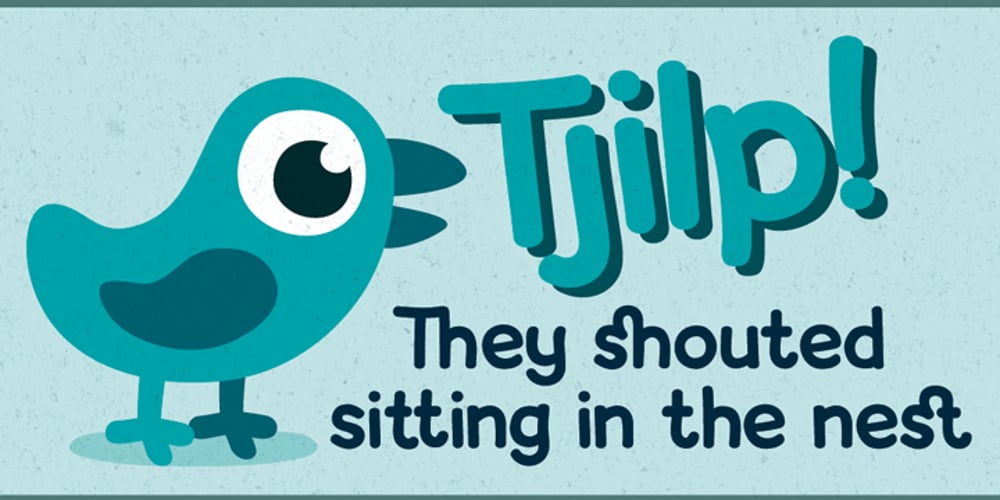
Loose Font Family was designed by Jan Willem Wennekes and published by Zeptonn. Loose contains 10 styles and family package options. Loose is a hand-drawn font with a slightly sloppy yet relaxed look. All glyphs have been handcrafted by illustrative designer Zeptonn. It contains lots of Open Type goodness to ensure you’ll be able to give your entire text that random and handcrafted feeling. It’s great for setting fun text for headers, posters or cards. Or hey, you could use it as a nice alternative for something that starts with “Comic” and ends with “Sans”! The typeface contains nice takes on traditional standard ligatures, a few discretionary ligatures and even provides contextual and stylistic alternates. This is all provided to ensure your text can have that awesome loose feeling!